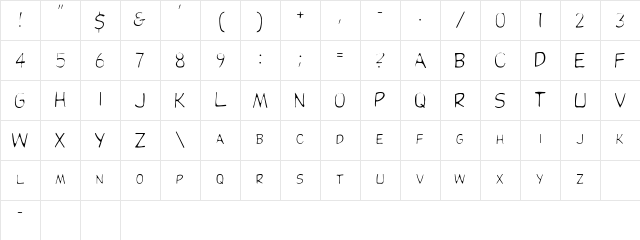
Dupuy Light is a composed and adaptable typeface that performs quietly and consistently across a wide range of design contexts. Its slender proportions lend an understated elegance to any composition.